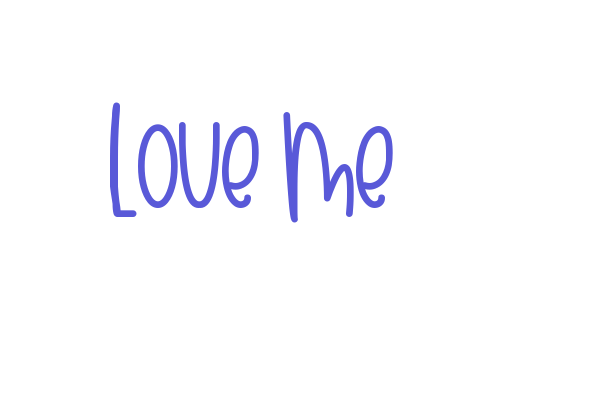
Love Me is a handwritten script font designed by Anggun 2022. This font exudes a sense of romance and elegance, making it perfect for wedding invitations, love letters, and other heartfelt messages. With its flowing and delicate strokes, Love Me adds a personal touch to any design project.
Font Name: Love Me
Designer: Anggun 2022
Category: Handwritten, Script
Font Family: Love Me